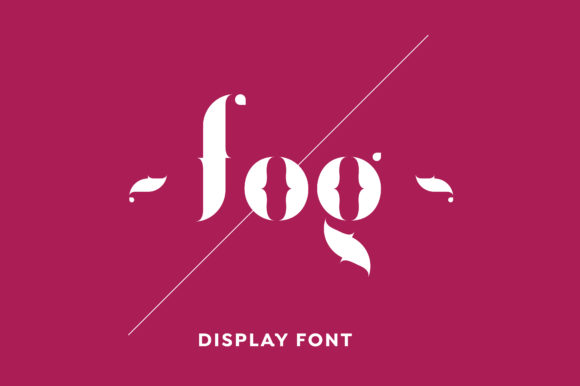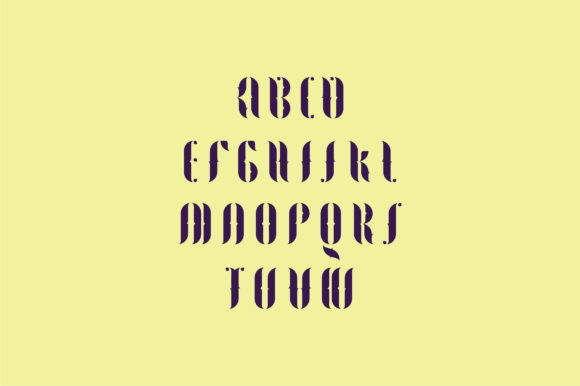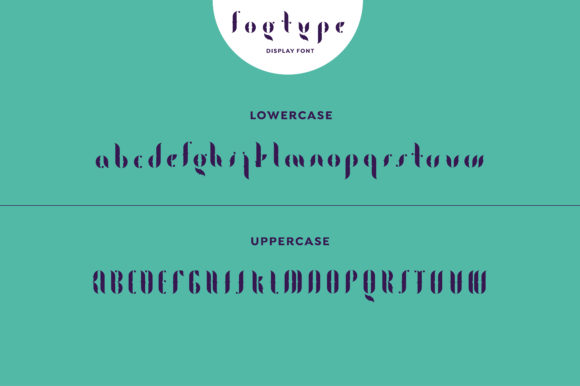
Fogtype is a modular font with an incredibly smart feel. Get inspired by its unique charm, and turn any design project into a stand out with this contemporary update of a classic blackletter font.
Not only can be used as a typeface but by playing with its shapes you can construct endless patterns and illustrations.